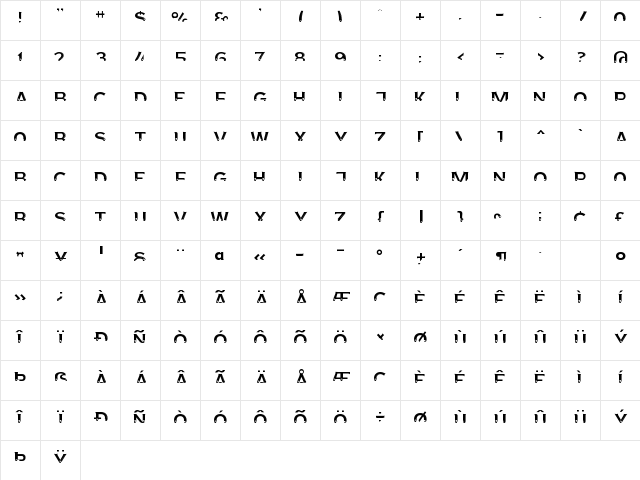
Complete AgreloyInT3 Medium glyph index. Displaying only characters natively supported by AgreloyInT3 Medium font.
AgreloyInT3 is a composed and adaptable typeface that performs quietly and consistently across a wide range of design contexts.